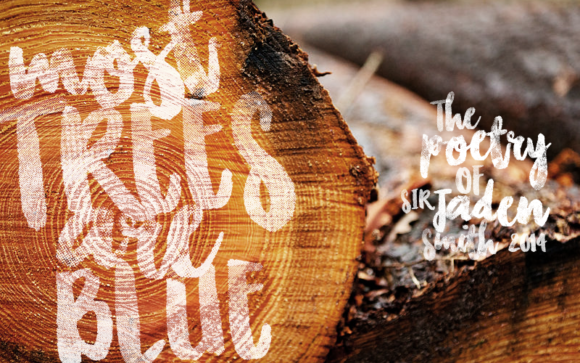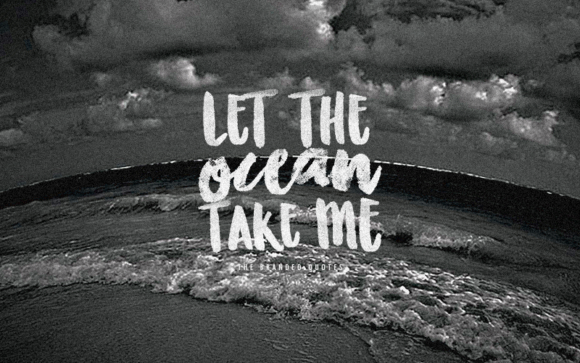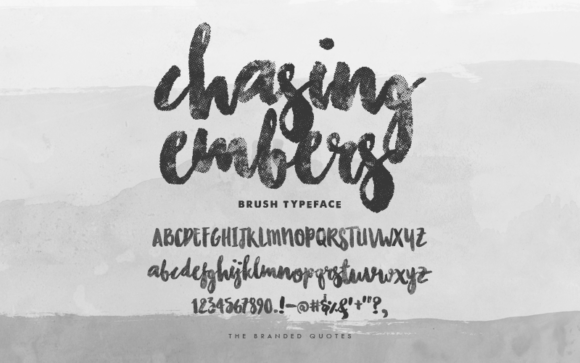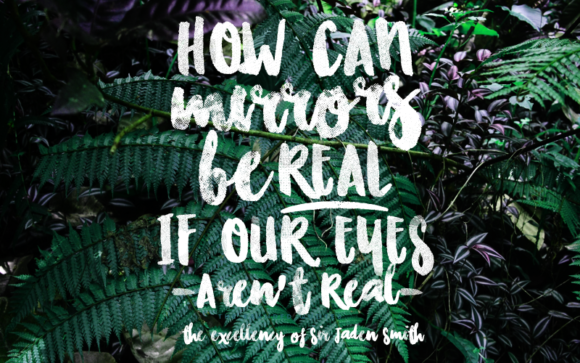
Introduction to Chasing Embers Font
Chasing Embers is a stunning script font that delivers an extraordinary font experience.
Key Features of Chasing Embers Font
Why Choose Chasing Embers Font?
Chasing Embers Font offers exceptional quality and versatility, making it a valuable addition to your design toolkit. Whether you’re creating for personal projects or commercial use, Chasing Embers Font delivers professional results.